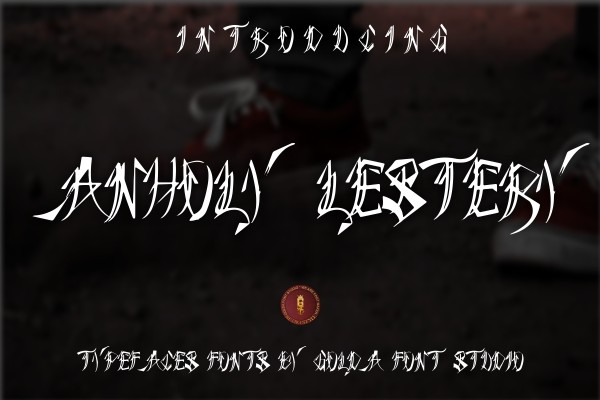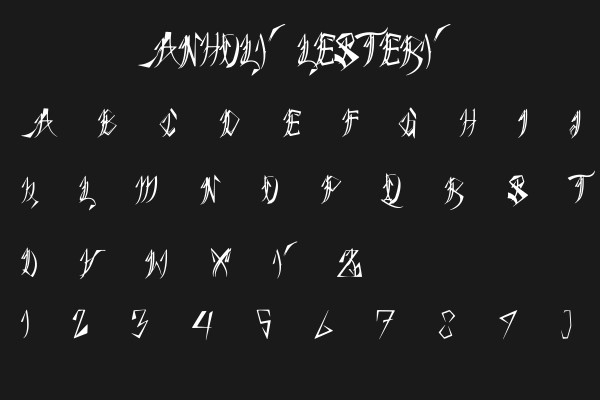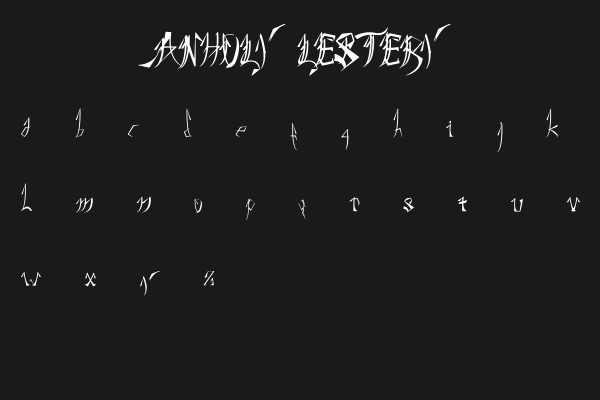
ANHOLY LESTERY Font
About ANHOLY LESTERY Font
ANHOLY LESTERY type blackletter has a new style and an elegant design suitable for poster design, clothing design, logotype design, design lettering quotes, social media, and so on.
This font will help you in your graphic design and will also work for subtitles, such as album songs and book cover subtitles.